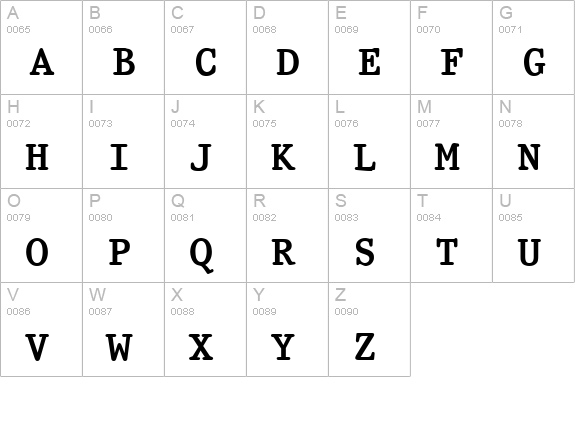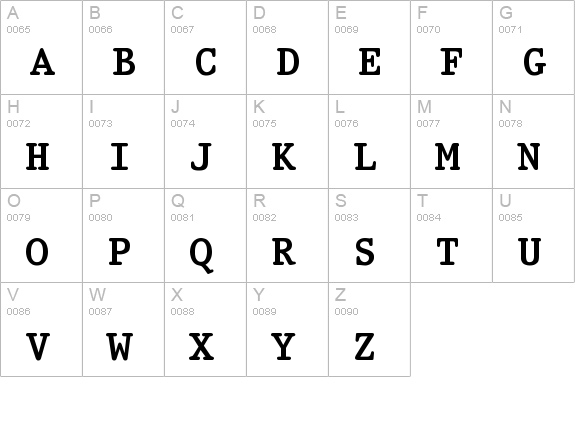
QTPristine Bold Font Details
QTPristine Bold is a strong, high-contrast variant in the QTPristine typeface family \xE2\x80\x94 well suited to headlines, attention-grabbing titles, and strong calls-to-action.
Introducing QTPristine Bold, a stunning and versatile font that exudes power and elegance. With its bold and confident strokes, this font captures attention and makes a lasting impression. QTPristine Bold is perfect for any project that requires a strong and impactful visual presence. Featuring clean lines and well-balanced letterforms, QTPristine Bold demands attention without overpowering other design elements. Its bold weight adds a touch of sophistication, making it ideal for headings, titles, logos, and branding materials. But what makes QTPristine Bold even more remarkable is that it is available for free! Yes, you read that right. This exceptional font can be freely downloaded at FontsMarket.com. Now, you can enhance your creative projects without breaking the bank. Whether you are a professional designer looking to add a touch of class to your work or a casual user in need of an eye-catching font for personal projects, QTPristine Bold is the perfect choice. Its versatility and striking appearance make it suitable for a wide range of applications, from print materials to digital designs. Download QTPristine Bold for free at FontsMarket.com today and unleash your creativity with this exceptional font. Elevate your designs and leave a lasting impression with the power and elegance of QTPristine Bold.